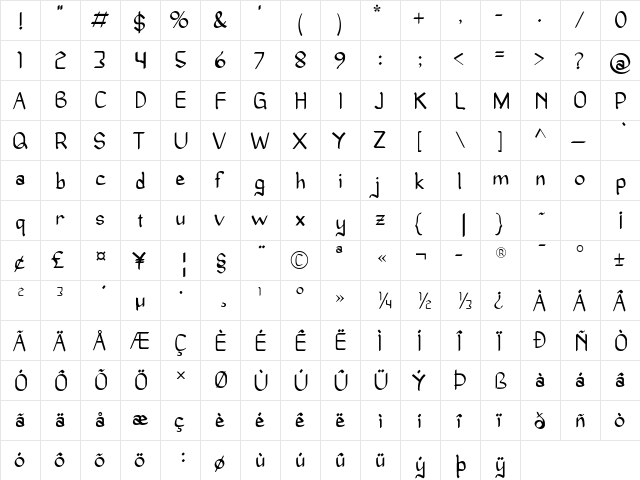
Oathkeeper Regular
| Designer | Yofi Aprilla |
Design Context for Oathkeeper Typeface
Oathkeeper takes a measured approach to typography — its balanced proportions and neutral character make it a reliable workhorse for both digital and print work.